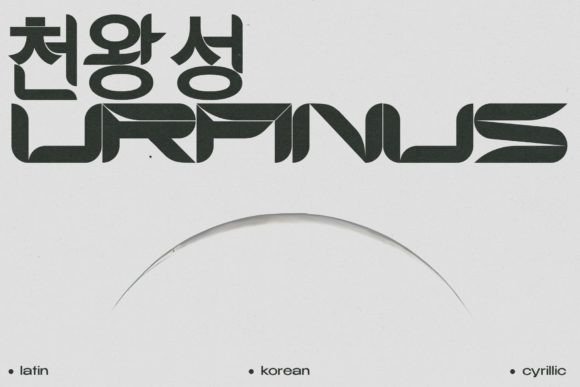
Journey through the cosmos with Uranus Font, a breathtaking display font that captures the essence of space and extraterrestrial civilizations. Its wide proportions and organic curves evoke streamlined spaceships, while its excessive contrast between upper elements and crossbars creates a unique visual intrigue.
Uranus is a font of contrasts, where sharp angles meet flowing curves, and negative space forms triangular shapes that add depth and dimension to your designs. This font is perfect for large typography, logos, and any design that seeks to convey a sense of futurism and space exploration.
Imagine your words taking flight, soaring through the cosmos, and leaving a trail of stardust in their wake. Uranus Font is your ticket to this intergalactic voyage, where your creativity knows no bounds. It's a font that speaks of innovation, progress, and the boundless possibilities of the universe.
With Uranus Font, you can transform ordinary words into extraordinary expressions. Its bold and distinctive characters command attention, leaving a lasting impression on your audience. Whether you're creating logos, posters, website headlines, or any other design project, Uranus Font will elevate your work to new heights.
Don't settle for ordinary fonts when you can embrace the extraordinary. Uranus Font is your gateway to a world of limitless creativity, where your imagination can run wild and your designs can reach for the stars.
So, embark on this cosmic adventure with Uranus Font, and let your designs shine with the brilliance of a thousand galaxies. The universe is waiting for you to explore it, one letter at a time.